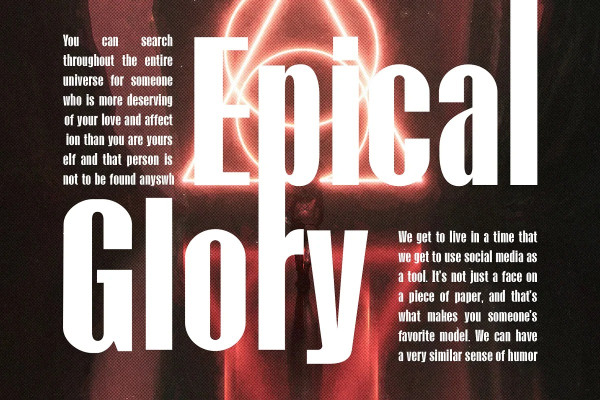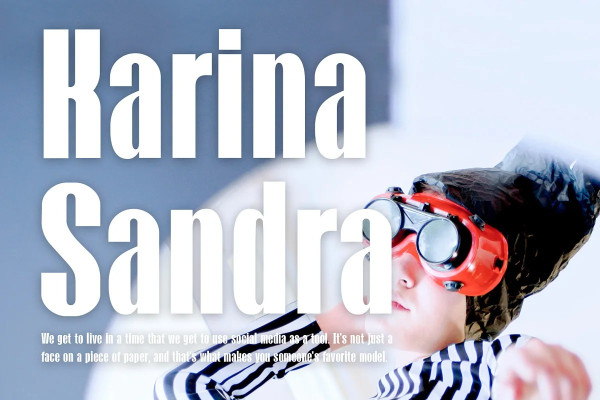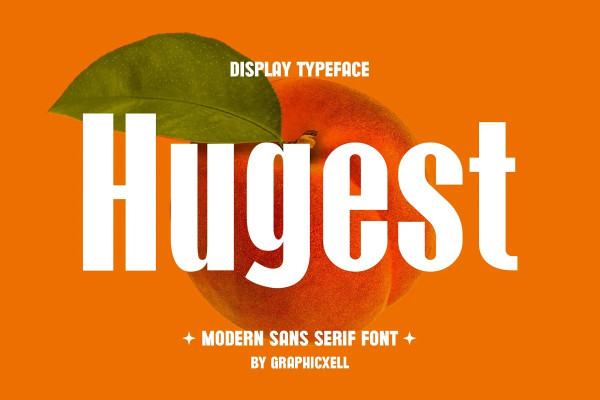
Hugest Font
Hugest Font, inspired by the famous minimalist logo perfect for the purposes of designing templates, brochures, videos, advertising branding, logos, invitation, layout design, elegant crafting, beauty design and more.